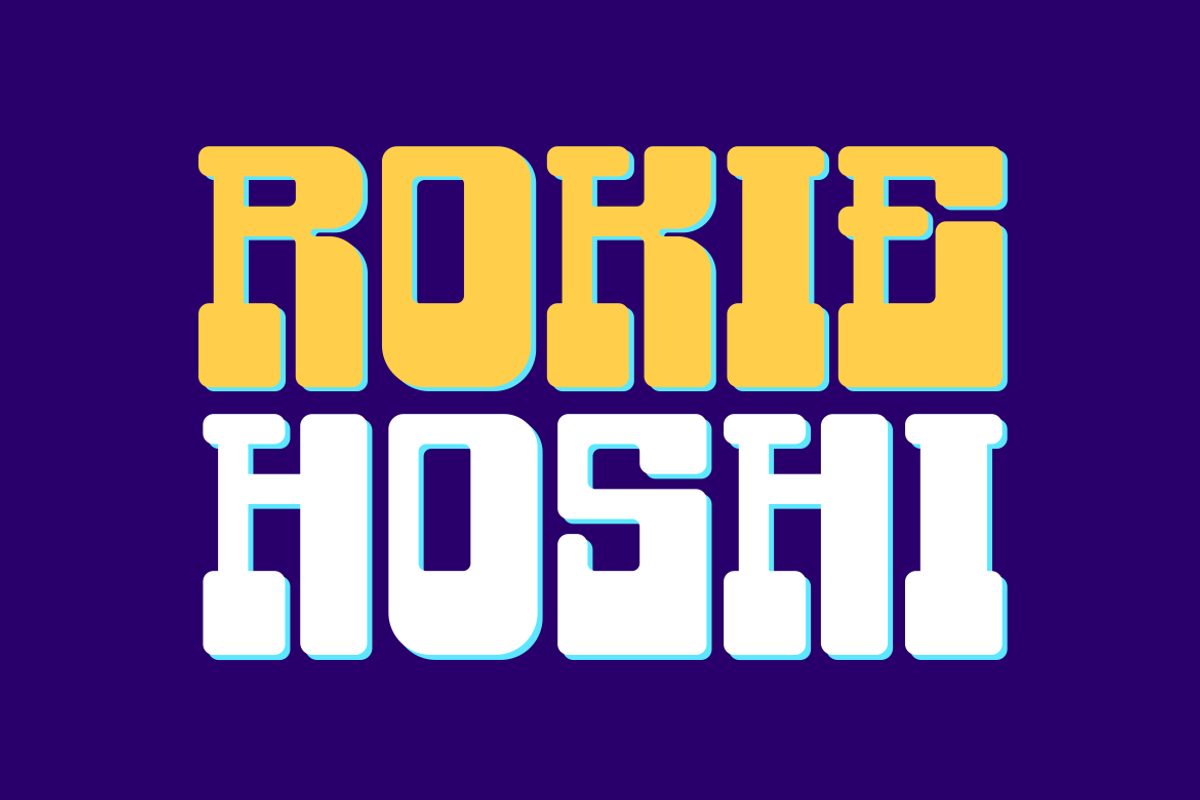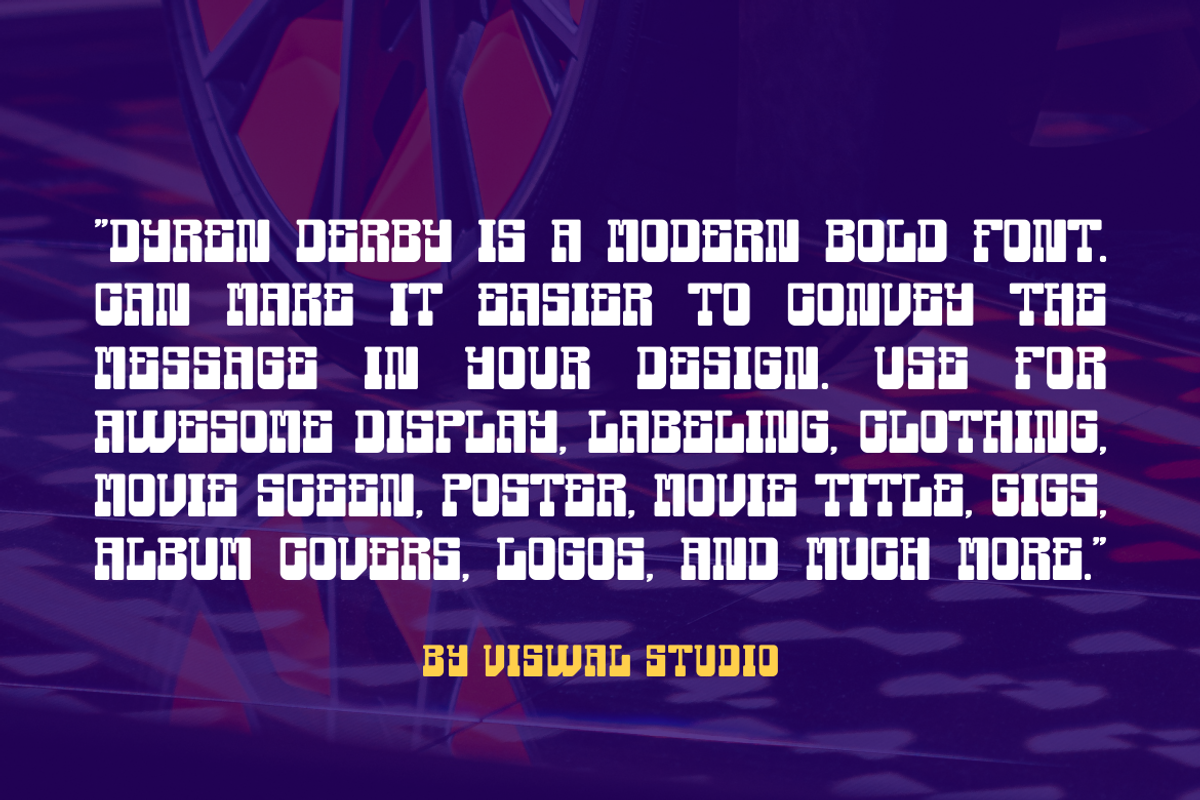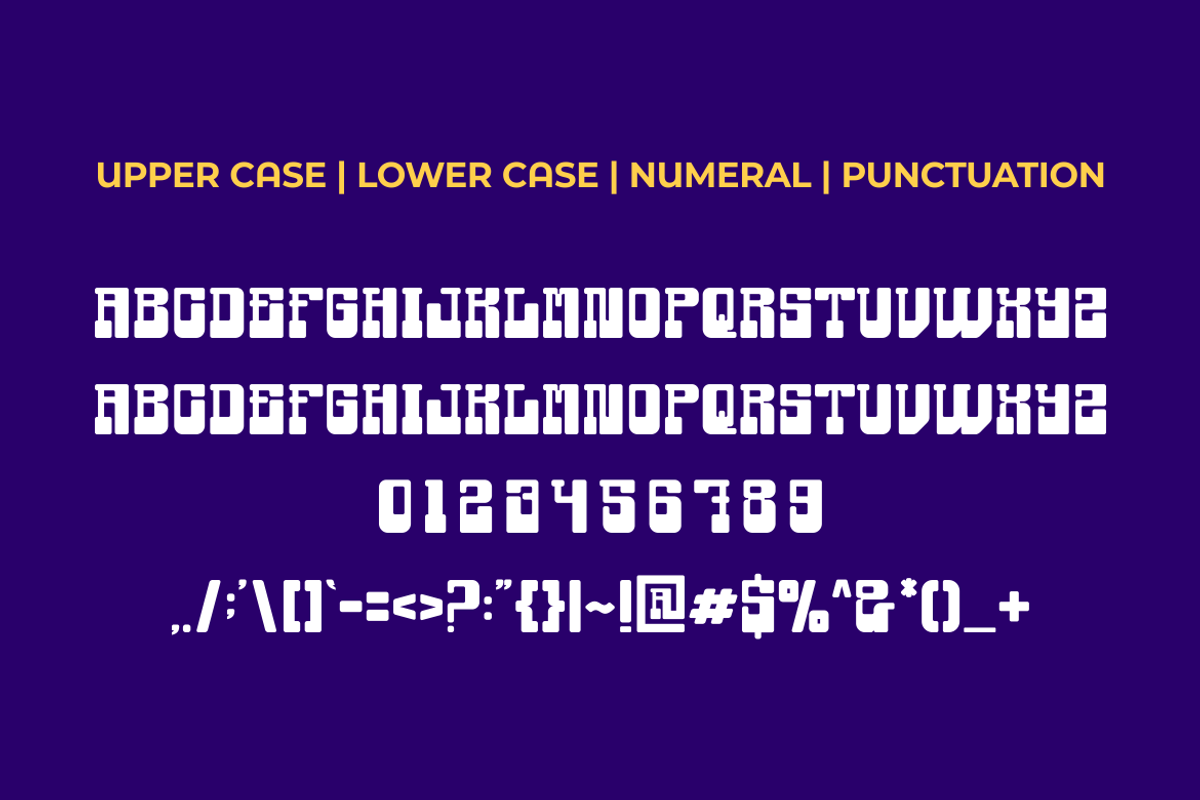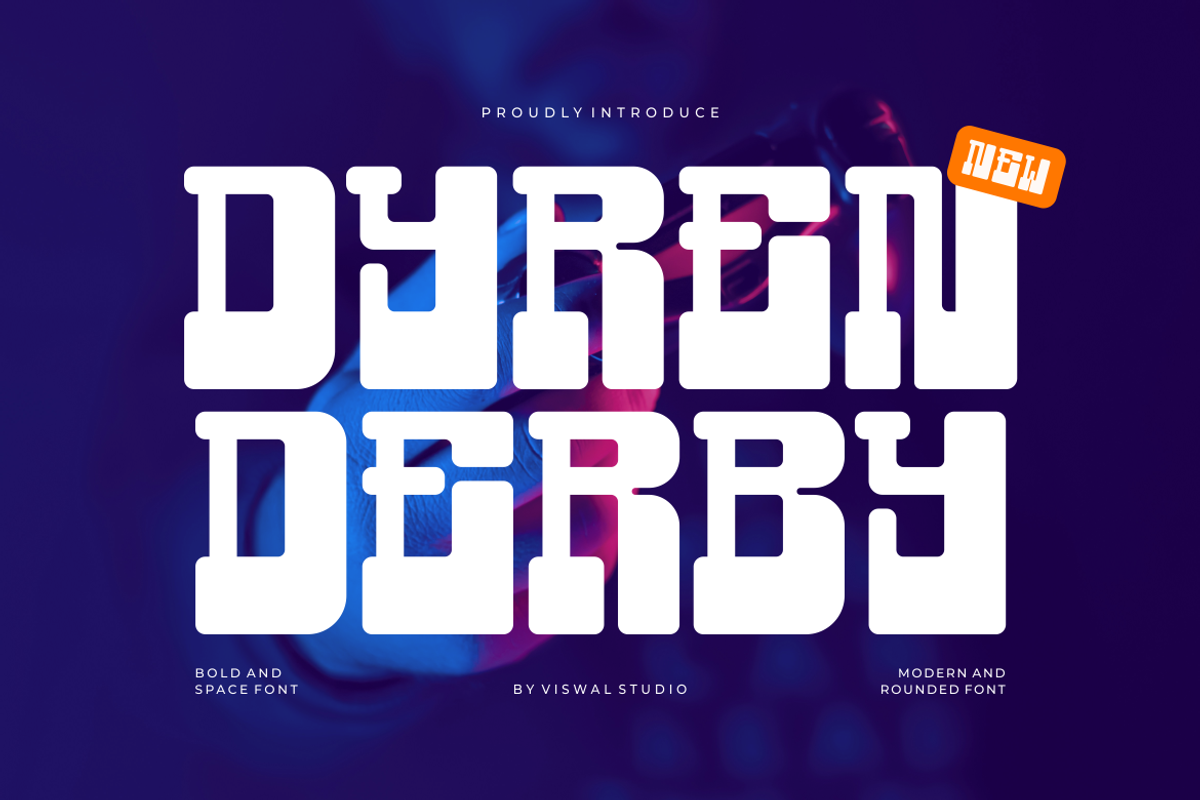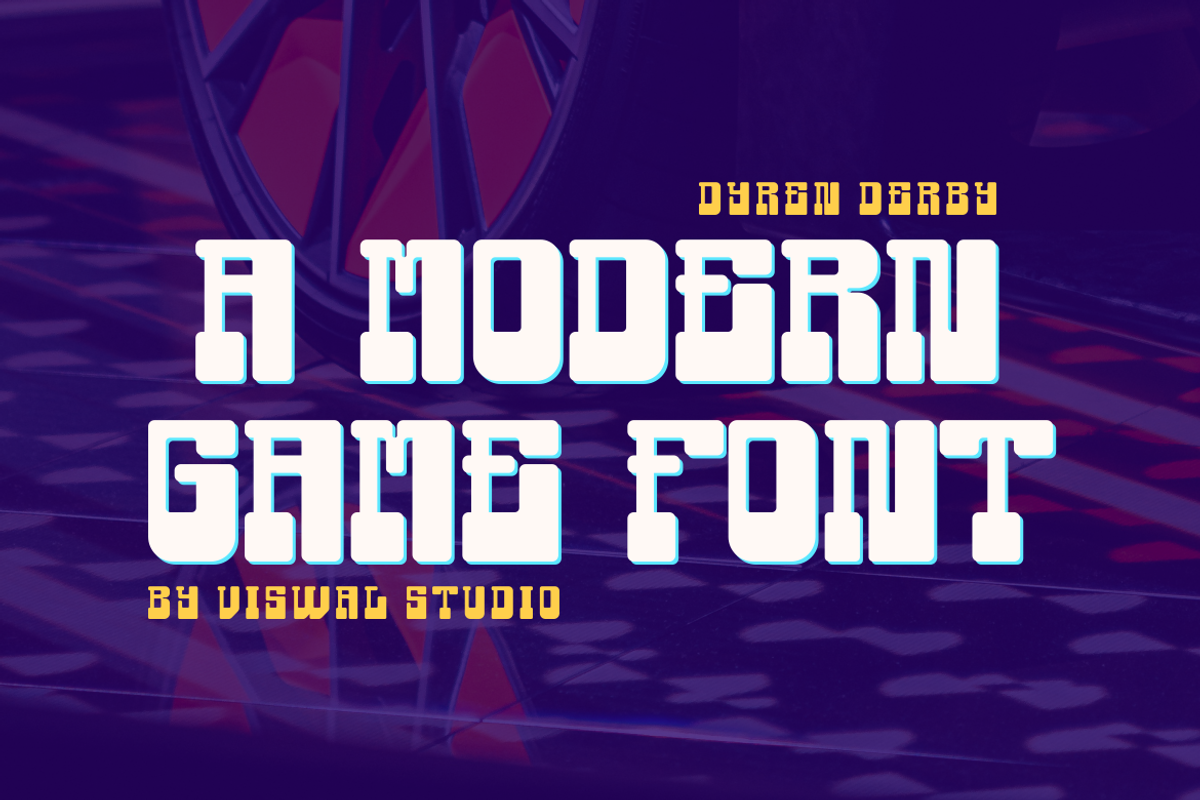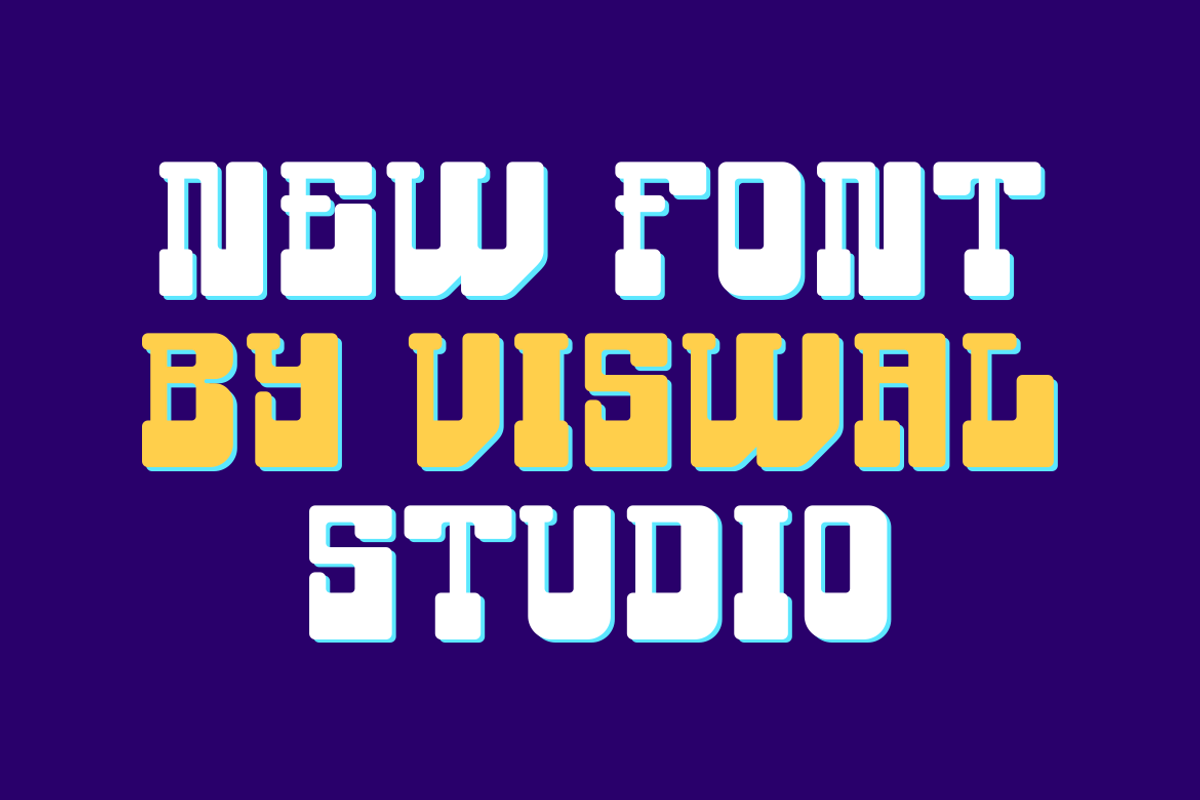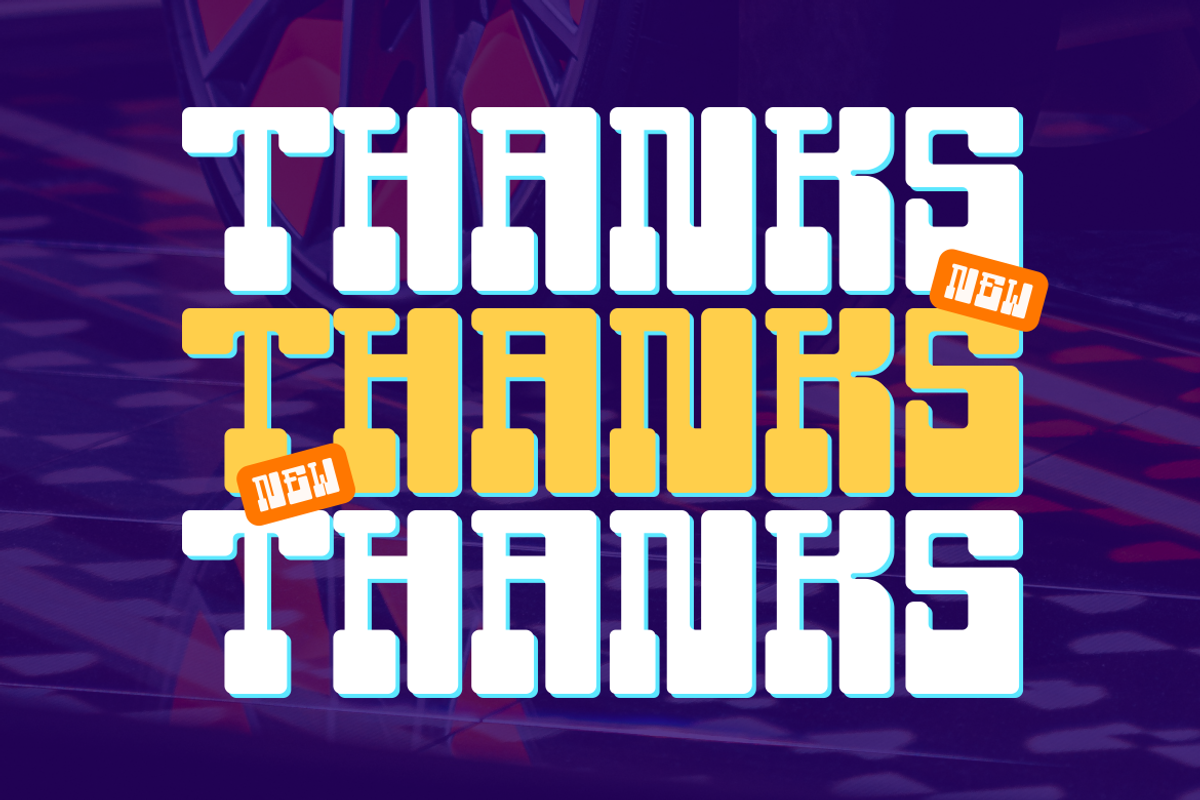
Dyren Derby - Bold Modern Font
Presenting Dyren Derby Is A Bold Modern Font.
Can Make It Easier To Convey The Message In Your Design. Font Is Suitable For Logo, Labels, Badge, Branding, Magazine, Poster, Title, Gigs, Covers And Etc. Our Fonts Have Uppercase & Lowercase, Numeral & Punctuation, And Opentype Features. For Amazing Designs You Can Mix With Other Fonts As A Complement.